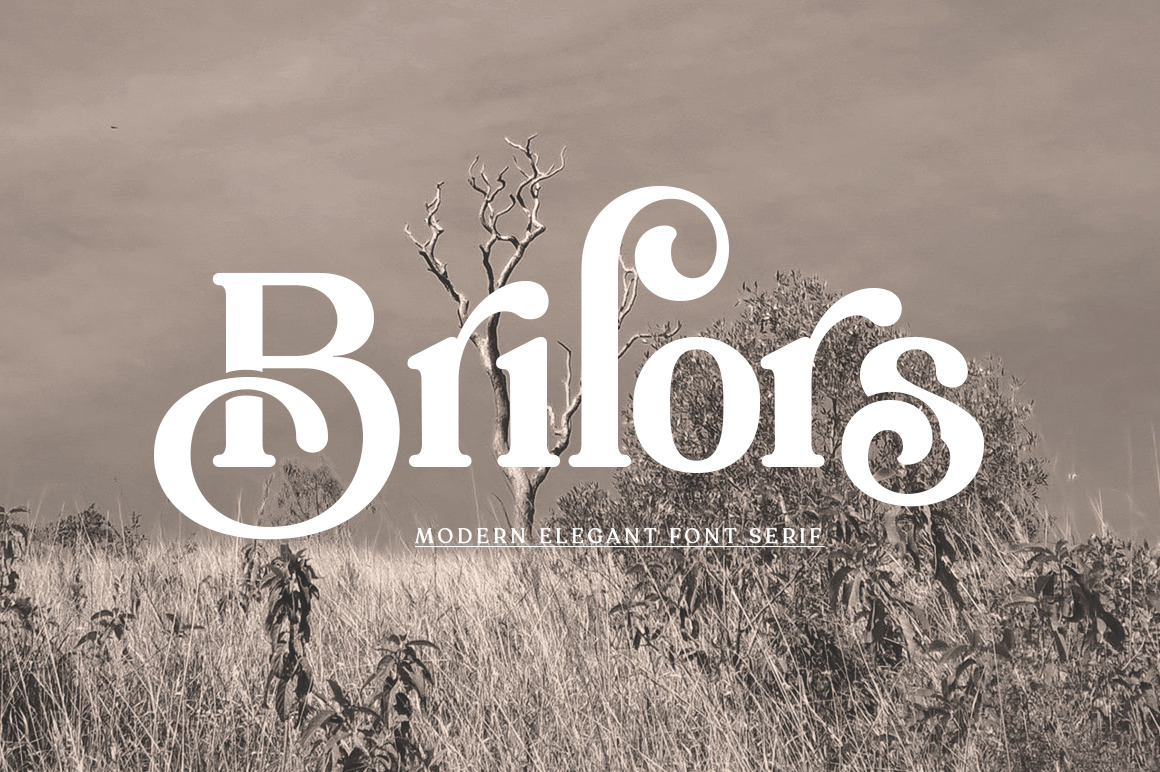
Brilors
Brilors is a serif font family published by Zane Studio.
Brilors is a stylish font. It has a modern and retro look - clear, modern and fun. Help create layout designs in 60’s or 70’s design projects.
This font has over 50 unique alternatives and binders that give your logo, business cards and other projects a unique vintage look.